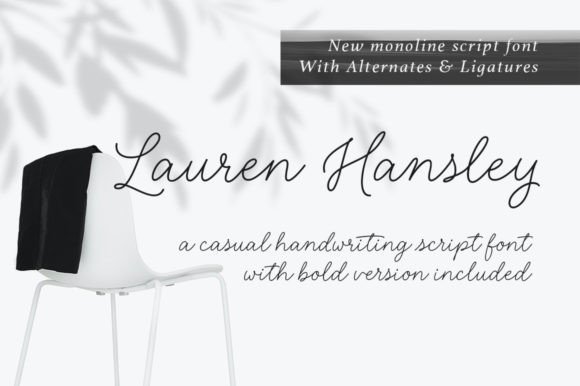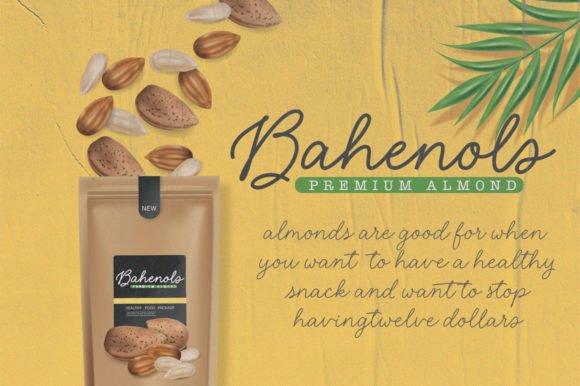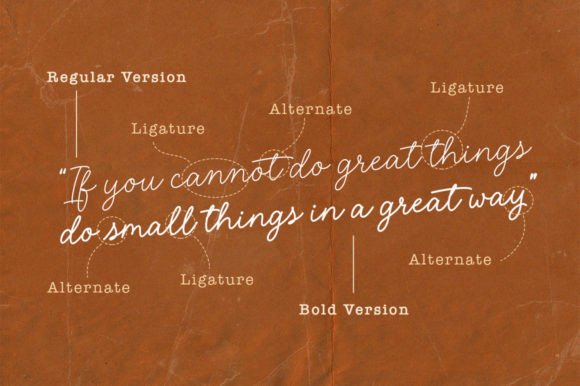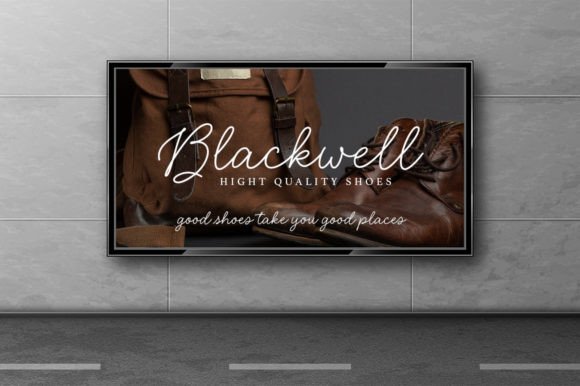
Lauren Hansley Font: Elegant Script with Ligatures for Branding & Wedding
About the Lauren Hansley Font
Unleash your creativity with Lauren Hansley Font, a versatile font perfect for a wide range of applications. Introducing the new Lauren Hansley script font – A beautiful and super-chilled script with some sexy stylish ligatures and alternates.This font is PUA encoded, which means you can access all of the glyphs and swashes with ease!
Lauren Hansley excels in applications requiring a touch of relaxed elegance, such as logos, short headlines, invitations, or social media graphics. Its stylish ligatures add a unique flair to branding projects, particularly those targeting a sophisticated yet approachable audience. However, avoid using it for body text or lengthy paragraphs; its script nature makes extended reading difficult.
The font’s inherent personality is best described as sophisticated yet casual. It projects a sense of understated charm and modern style. For effective pairings, consider a clean sans-serif like Montserrat for a contemporary contrast, or a classic serif such as Garamond for a more traditional feel. A simple geometric sans-serif such as Futura could also provide a strong counterpoint to the script’s flowing forms.
Using Lauren Hansley with a complementary font will create a balanced and visually appealing design. Remember to maintain sufficient contrast in size and weight between the fonts for optimal readability.
Lauren Hansley Font Usage Examples
Lauren Hansley Font Example